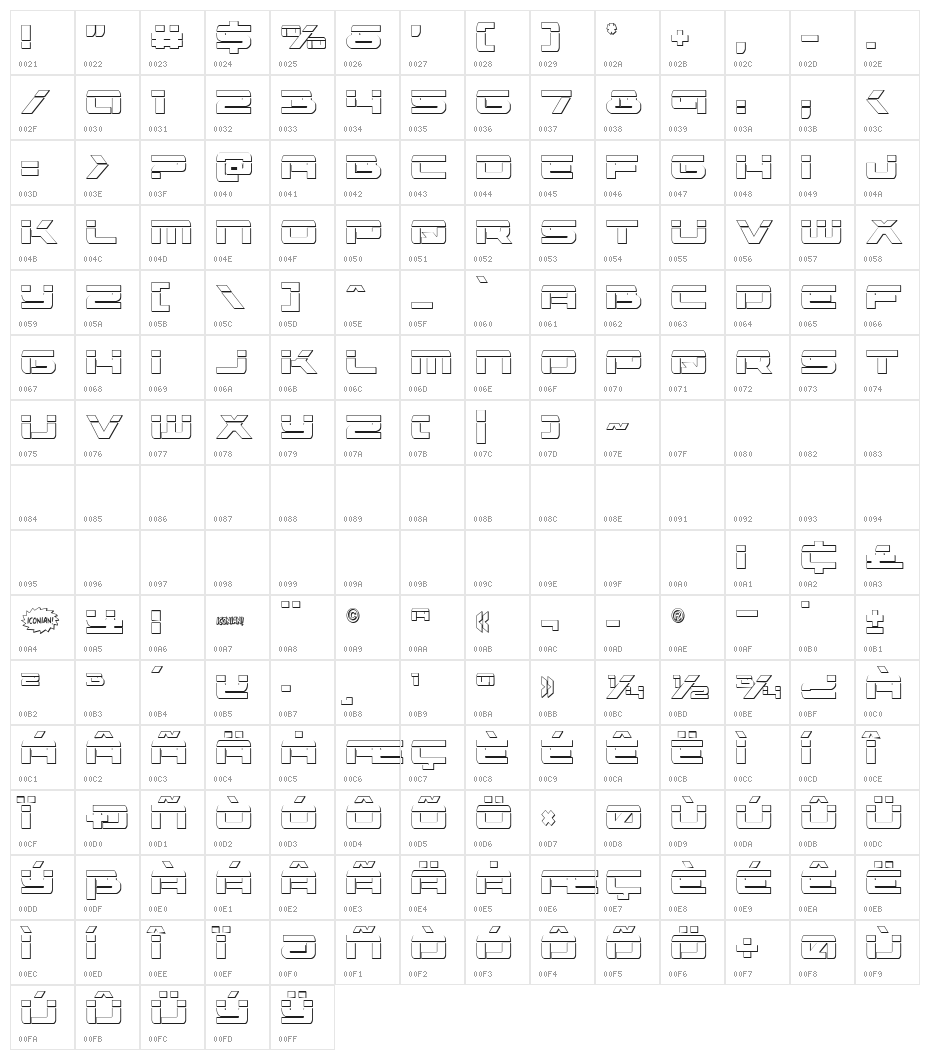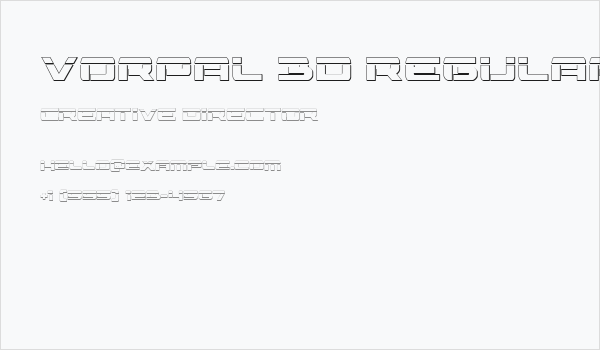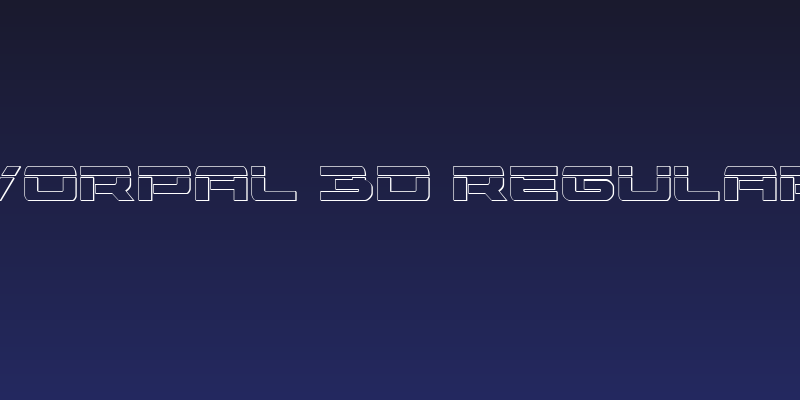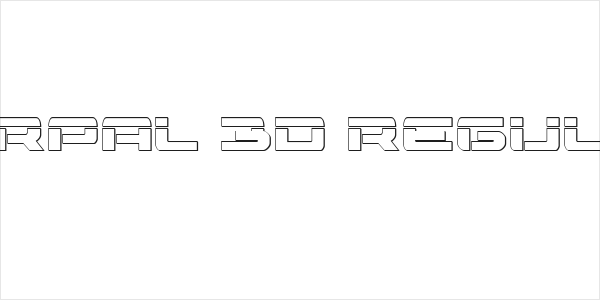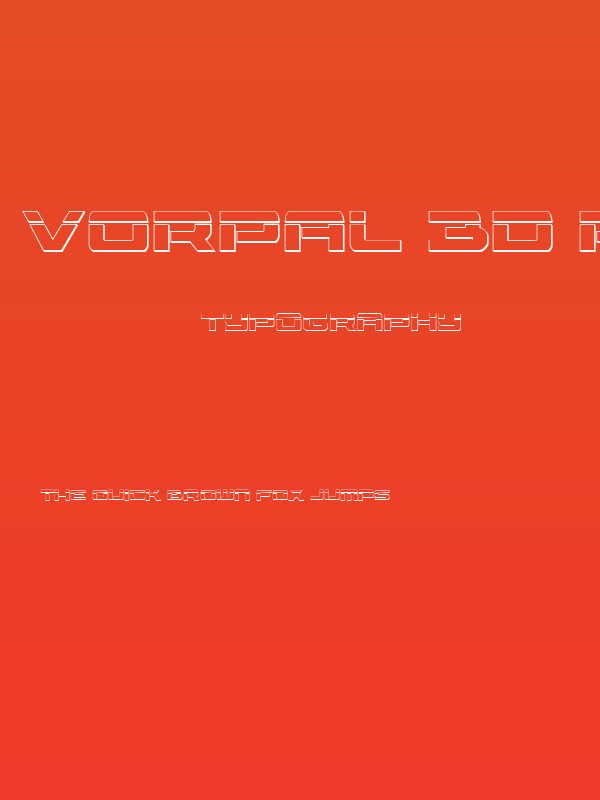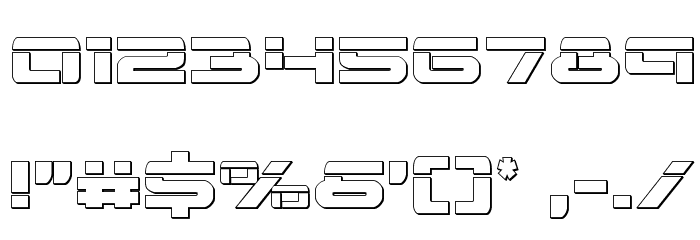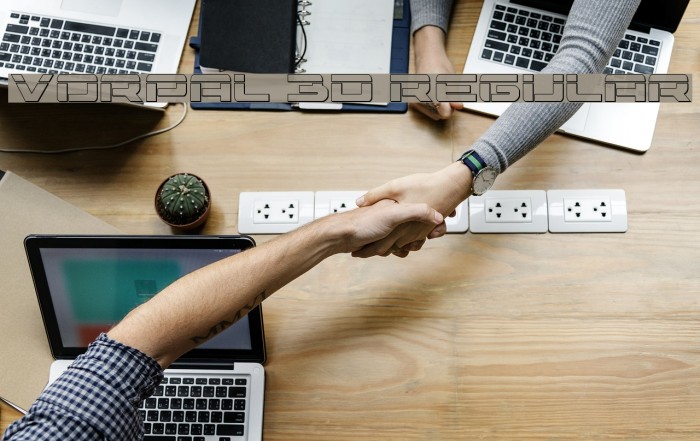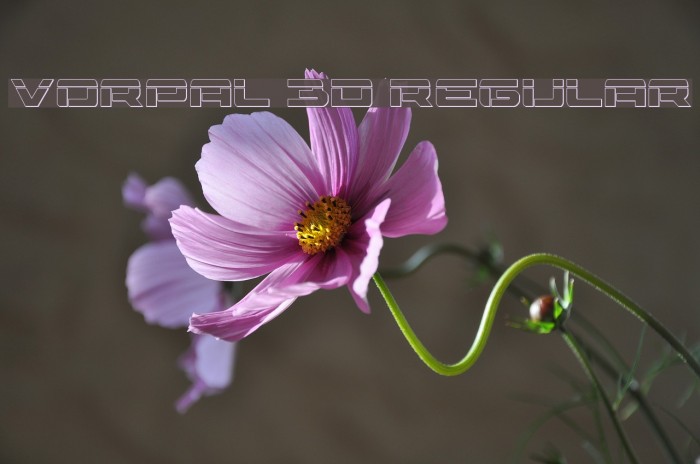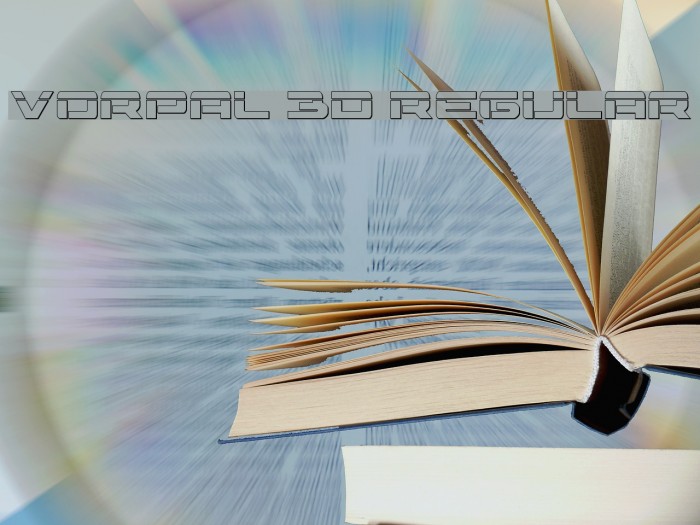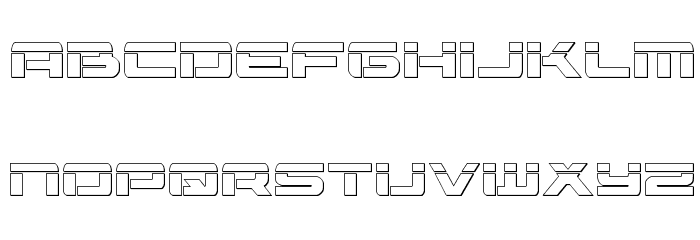
Vorpal 3D Regular Font
Vorpal 3D Regular Description
This font features a futuristic and geometric design, characterized by its three-dimensional appearance. The letters are constructed with bold, angular lines that create a sense of depth and structure. Each character is outlined, giving it a hollow look that enhances its modern and tech-inspired aesthetic. The font maintains a consistent height and width across all characters, ensuring uniformity and balance. Its unique style makes it stand out, suitable for projects that require a bold and innovative look.
| Proposed Projects | Ideal for sci-fi themed designs, tech company logos, video game titles, and modern posters. |